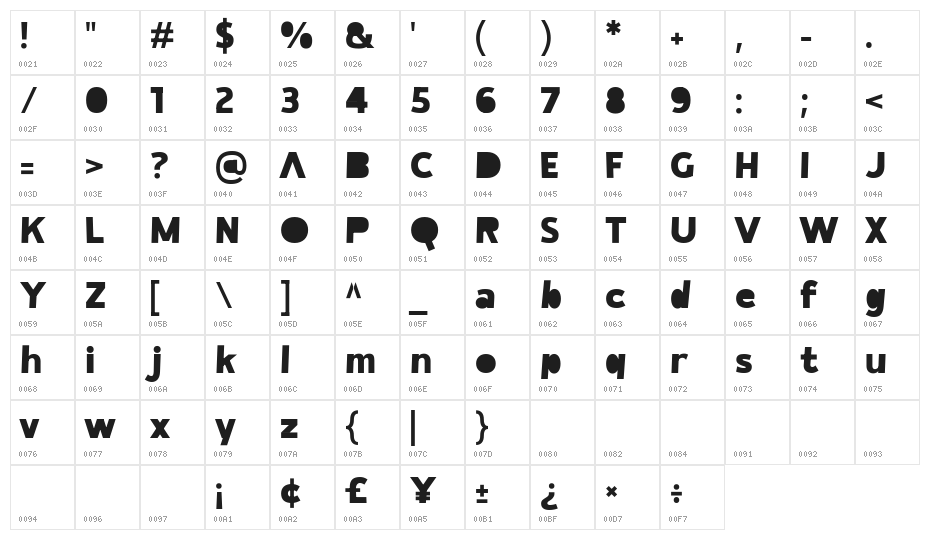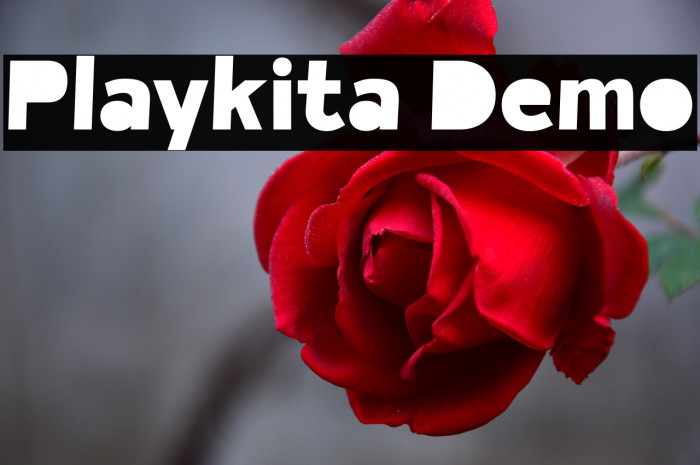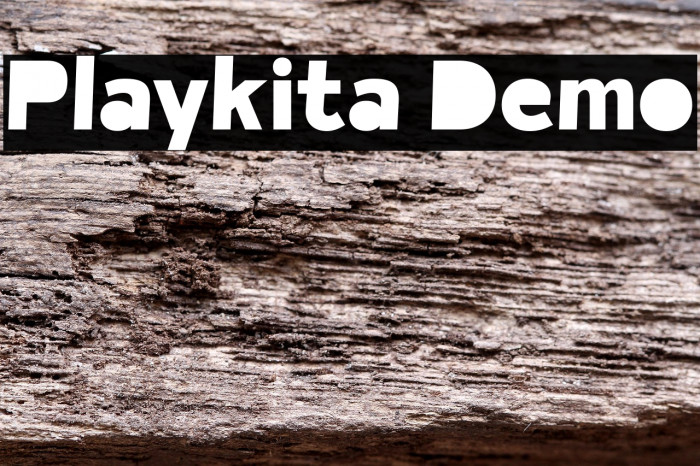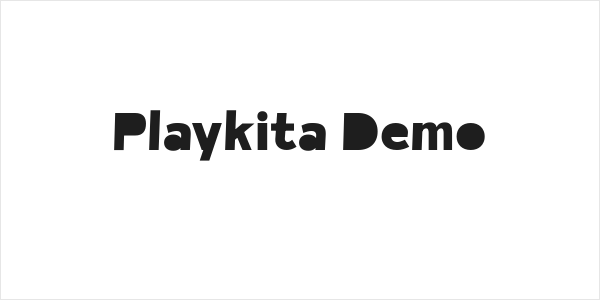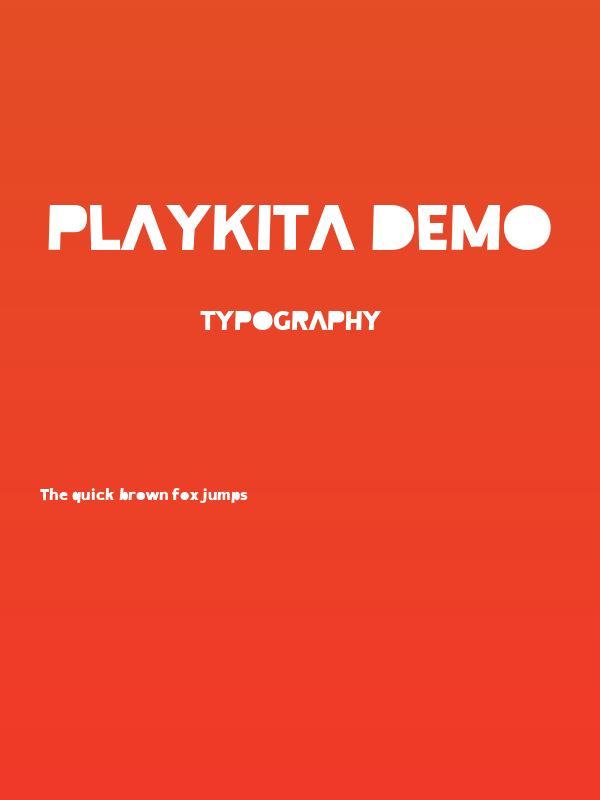
Playkita Demo Font
Playkita Demo Description
This font features a bold and playful design, characterized by its thick strokes and rounded edges. The uppercase letters are particularly striking, with a geometric influence that adds a modern touch. The lowercase letters maintain a consistent style, offering a friendly and approachable appearance. The numerals are bold and easily readable, making them suitable for various applications. Special characters are well-integrated, ensuring versatility in design projects. The overall aesthetic is both contemporary and fun, making it ideal for creative and dynamic uses.
| Proposed Projects | Ideal for children's books, playful branding, posters, and social media graphics. |